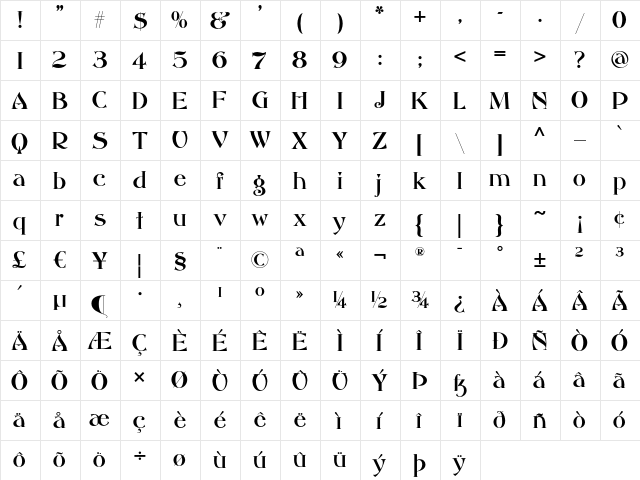
AbbeyRoadNF Regular
Design Context for AbbeyRoadNF Typeface
AbbeyRoadNF is a composed and adaptable typeface that performs quietly and consistently across a wide range of design contexts.